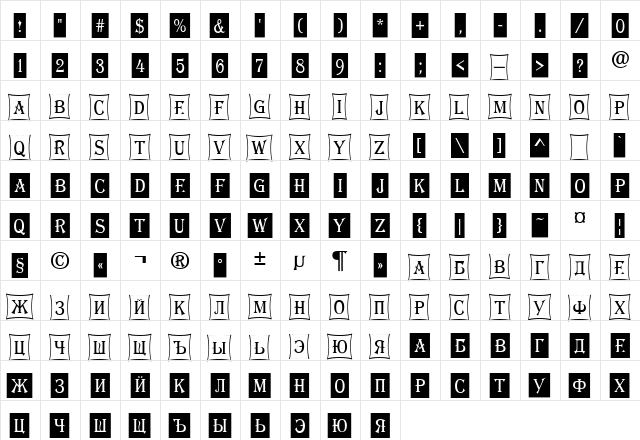
a_AlgeriusCmDc2Cmb Regular Font Preview
a_AlgeriusCmDc2Cmb Regular
Design Context for a_AlgeriusCmDc2Cmb Typeface
a_AlgeriusCmDc2Cmb is a composed and adaptable typeface that performs quietly and consistently across a wide range of design contexts.